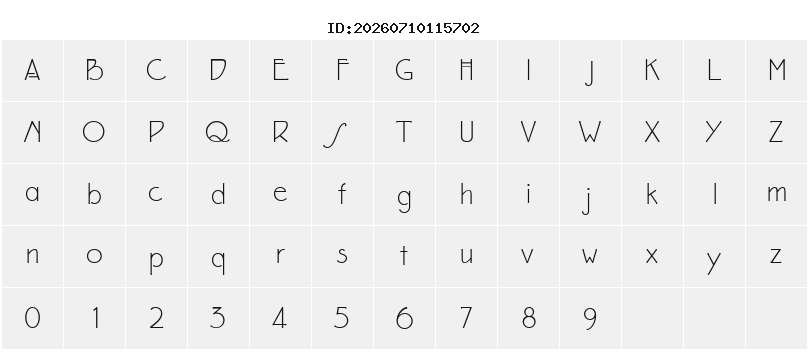
About EaglefeatherFormalLight.ttf
EaglefeatherFormalLight.ttf is a modern, elegant sans-serif font designed for ultimate readability and visual harmony. Perfect for branding, headlines, web design, and print materials.